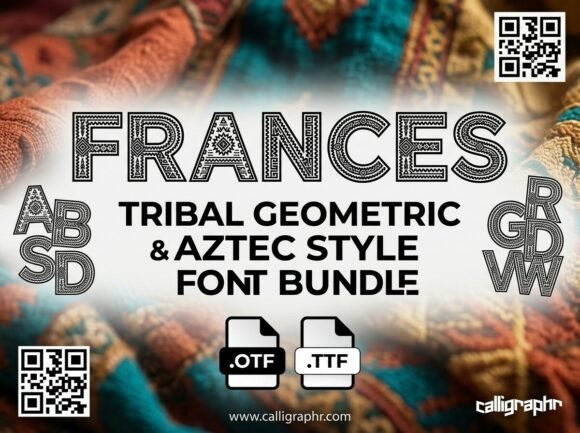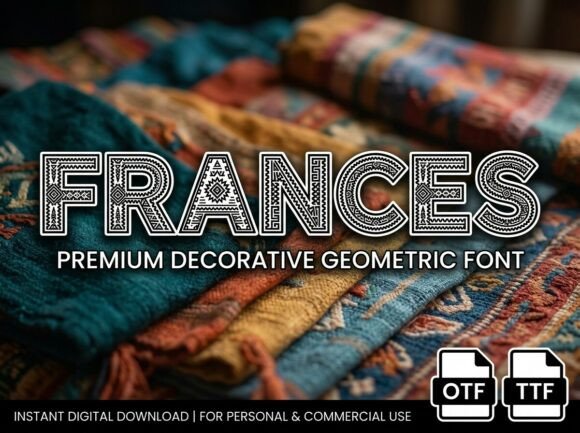
Introducing Frances Font: A Stunning Decorative Display Font
Are you tired of using the same old fonts for your designs? Do you want to add a touch of uniqueness and creativity to your projects? Look no further than Frances Font, a decorative display font that is sure to turn heads. With its artistic elements and strong visual personality, this font is perfect for creators who want to break away from the ordinary and make a statement.
What Makes Frances Font Special?
Frances Font is a one-of-a-kind font that is designed to be the center of attention. Its unique artistic elements and strong visual personality make it perfect for bold headlines, artistic logos, and creative packaging. Whether you’re a designer, craftsperson, or DIY enthusiast, this font is sure to elevate your projects to the next level.
Key Features of Frances Font
- Unique Artistic Elements: Frances Font features unique artistic elements that set it apart from other fonts. Each letter is carefully crafted to make a statement and add a touch of elegance to your designs.
- Strong Visual Personality: This font has a strong visual personality that is sure to grab attention. Whether you’re using it for a headline, logo, or packaging, Frances Font is sure to make an impact.
- Versatile: Despite its decorative nature, Frances Font is versatile enough to be used for a variety of projects, from bold headlines to artistic logos and creative packaging.
- Professional and Polished Finish: This font maintains a professional and polished finish, making it perfect for projects where you want to make a good impression.
Important Note Before Purchase
Please note that Frances Font is an ALL-CAPS (Uppercase Only) display typeface. This means that it does not include lowercase letters. It is specifically designed for high-impact headlines, logos, and decorative initials where every letter is a work of art. If you’re looking for a font that includes both uppercase and lowercase letters, Frances Font may not be the best choice for you.
Who is Frances Font For?
Frances Font is perfect for:
- Designers: Whether you’re a graphic designer, UI/UX designer, or visual designer, Frances Font is a great addition to your font library. Use it to create stunning headlines, logos, and packaging that will make your clients stand out.
- Crafters: If you’re a crafter, maker, or DIY enthusiast, Frances Font is a great choice for your projects. Use it to add a touch of elegance and sophistication to your crafts, such as handmade cards, gift tags, and more.
- Business Owners: If you’re a business owner looking for a unique font to use for your branding, Frances Font is a great choice. Use it to create eye-catching headlines, logos, and packaging that will help your business stand out.